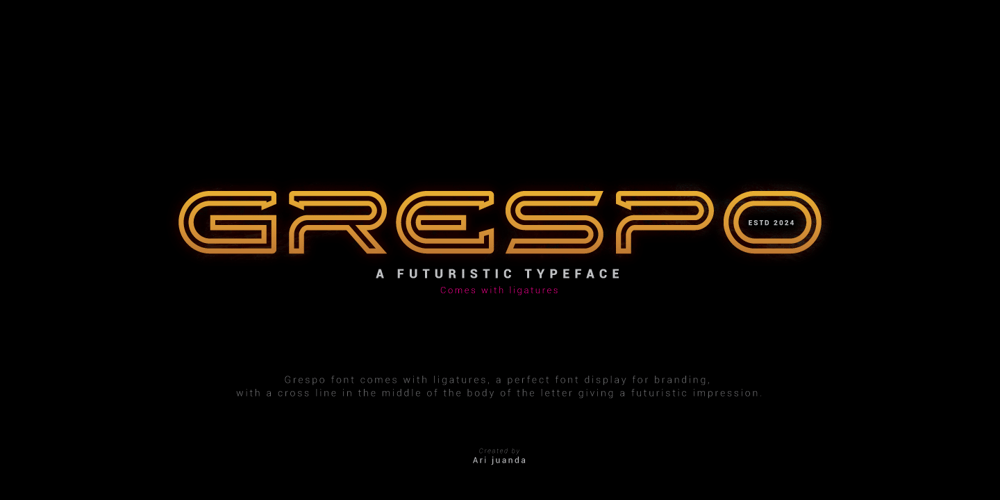
Grespo Font Family was designed by Ari Juanda and published by Linecreative. Grespo contains 1 styles and family package options. Grespo font comes with ligatures, a perfect font display for branding, with a cross line in the middle of the body of the letter giving a futuristic impression.